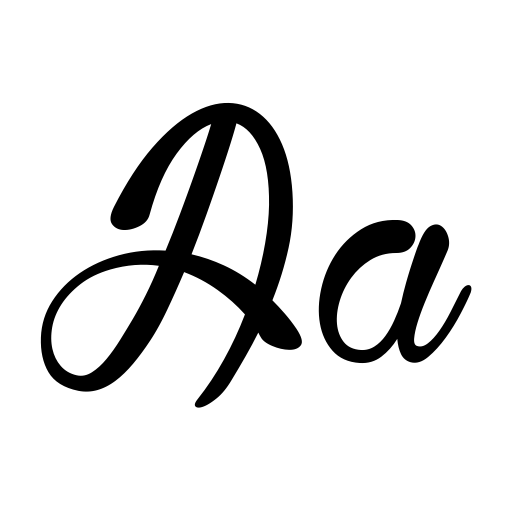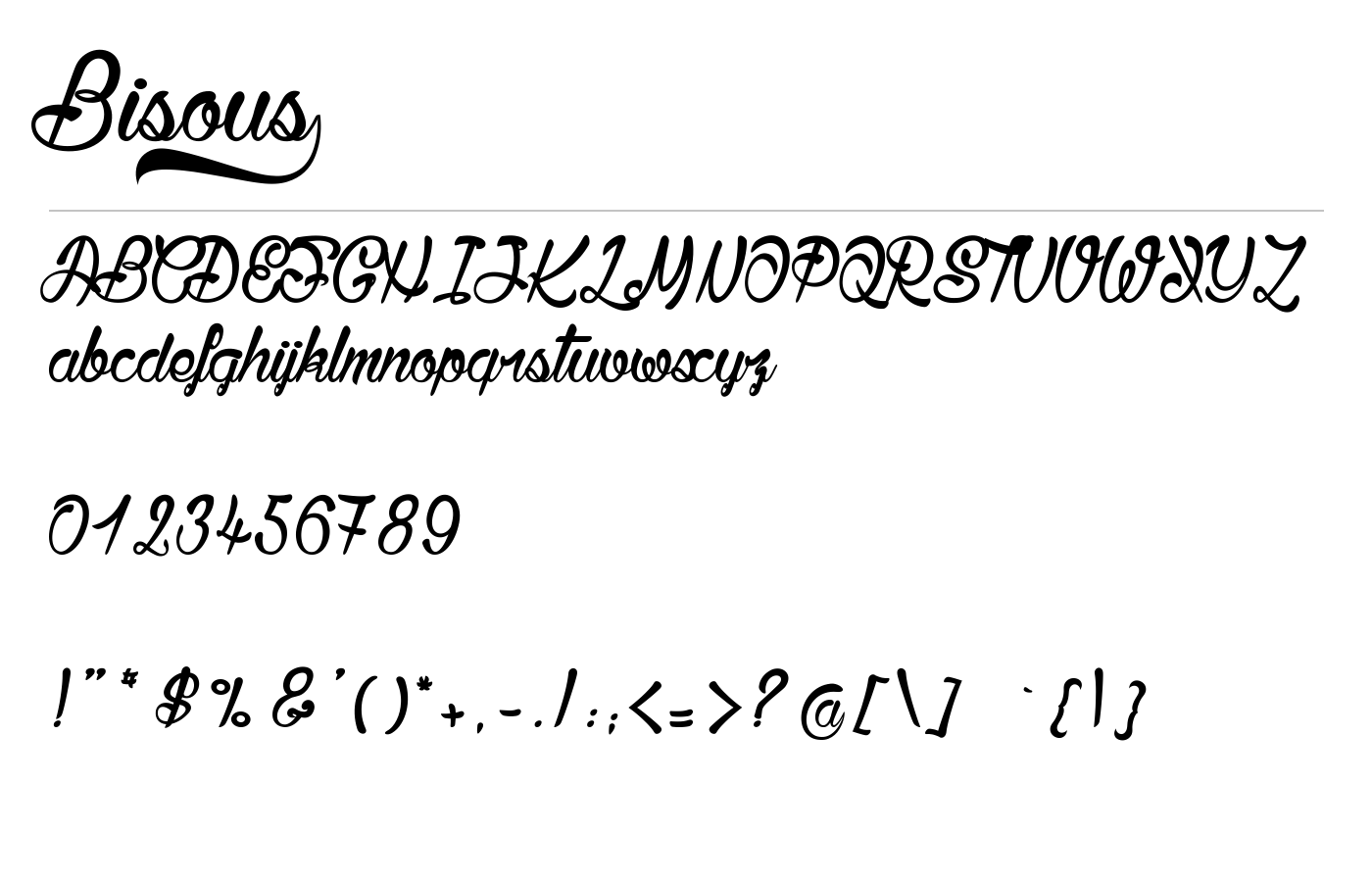
Bisous£ is a playful, elegant script font with a lively, handwritten style that features smooth, flowing curves and distinctive swashes, especially on capitals. Its moderately high contrast and slightly condensed letterforms give it a refined yet approachable personality, making it perfect for branding, invitations, and decorative headlines where a touch of charm and sophistication is desired. This font works beautifully for fashion, luxury, and creative projects that want to convey warmth and style with a unique flair.
| Font family | Bisous£ Font |
| Designer | dcoxy Medina Gregory |